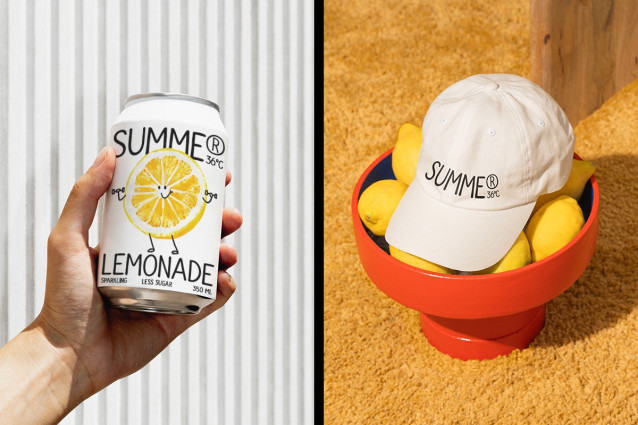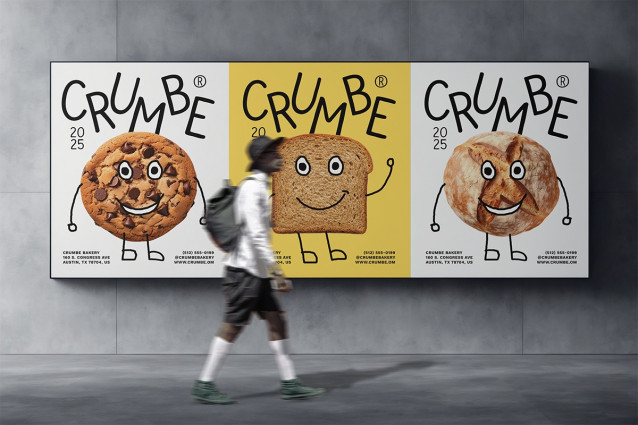
Sunny Smile Script Font
Sunny Smile Script Font is a playful handwritten typeface that brings cheerful, fun, and joyful energy to your designs. Its rounded and friendly letters create a cute and organic look that feels modern yet casual. Perfect for kids projects, logos, quotes, packaging, and personal branding, this smooth and aesthetic font adds a happy and creative touch to any layout. Let Sunny Smile brighten your design with its soft, simple, and funny vibe that truly makes you smile.